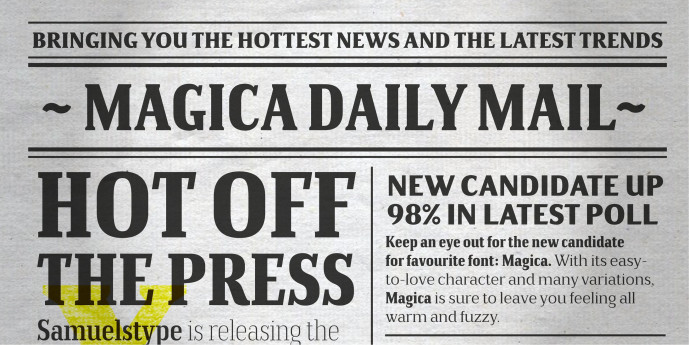
Magica Font Family
Magica Font Family: Samuelstype presents a new typographic system, intended to bring new versatility to any type-oriented project. The Magica family is generated from three basic interpolation premises; width, weight and serif. The presence of serif being a very prominent feature, this divides the family into four subfamilies; Jade (no serif), Onyx, Ruby and Topaz (full serif). In its present configuration the complete family counts 60 fonts, available in convenient packs at very reasonable price levels. Please note that at present Magica is only available in packs.